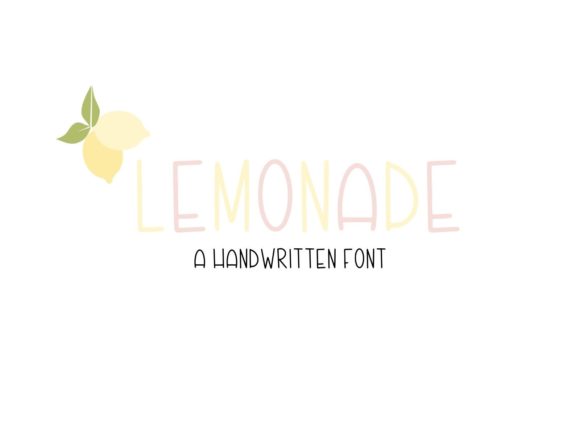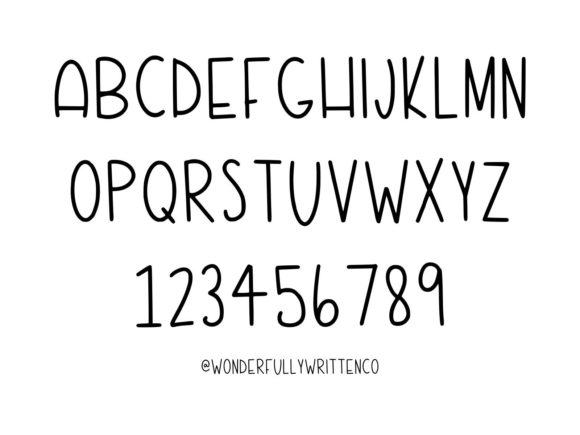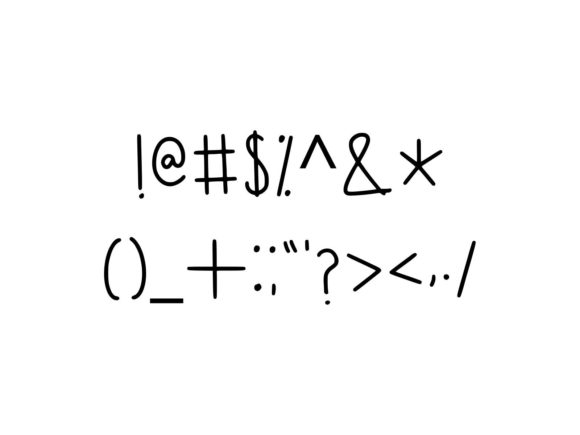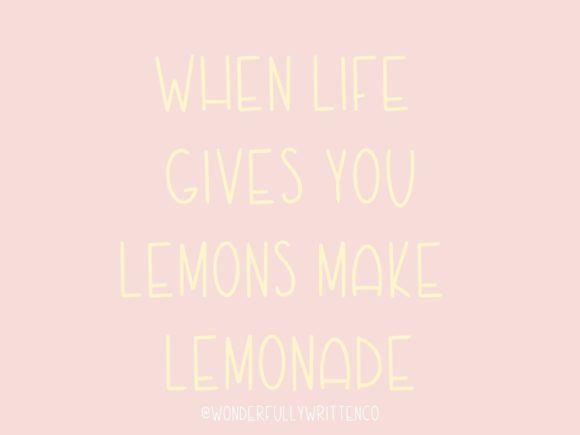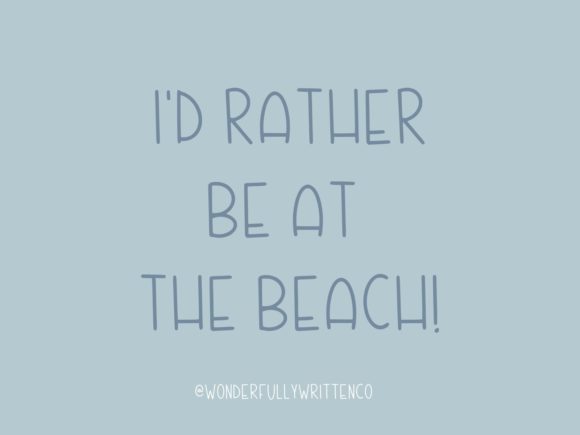
About Lemonade Font
LemonadeĀ is a simple handwritten font that can be used for all chalkboard quotes or teaching material! Its authentic look and feel will add a personal and realistic feel to your designs.